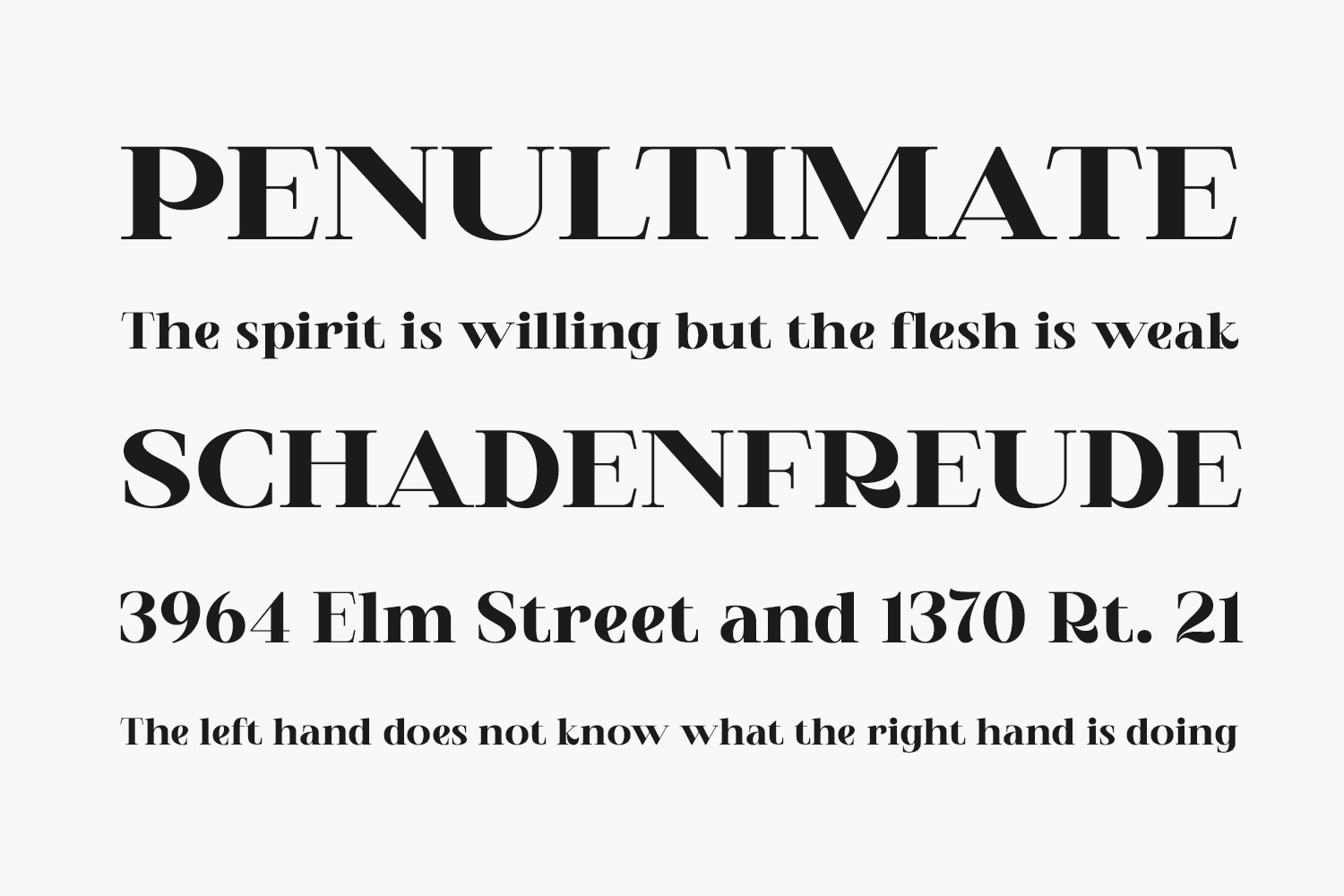
Reka Free Font is a stylish and bold serif font. Add it to your most creative ideas and notice how it makes them come alive. Reka Free Font is free for personal use only. Please purchase the full version for commercial use.